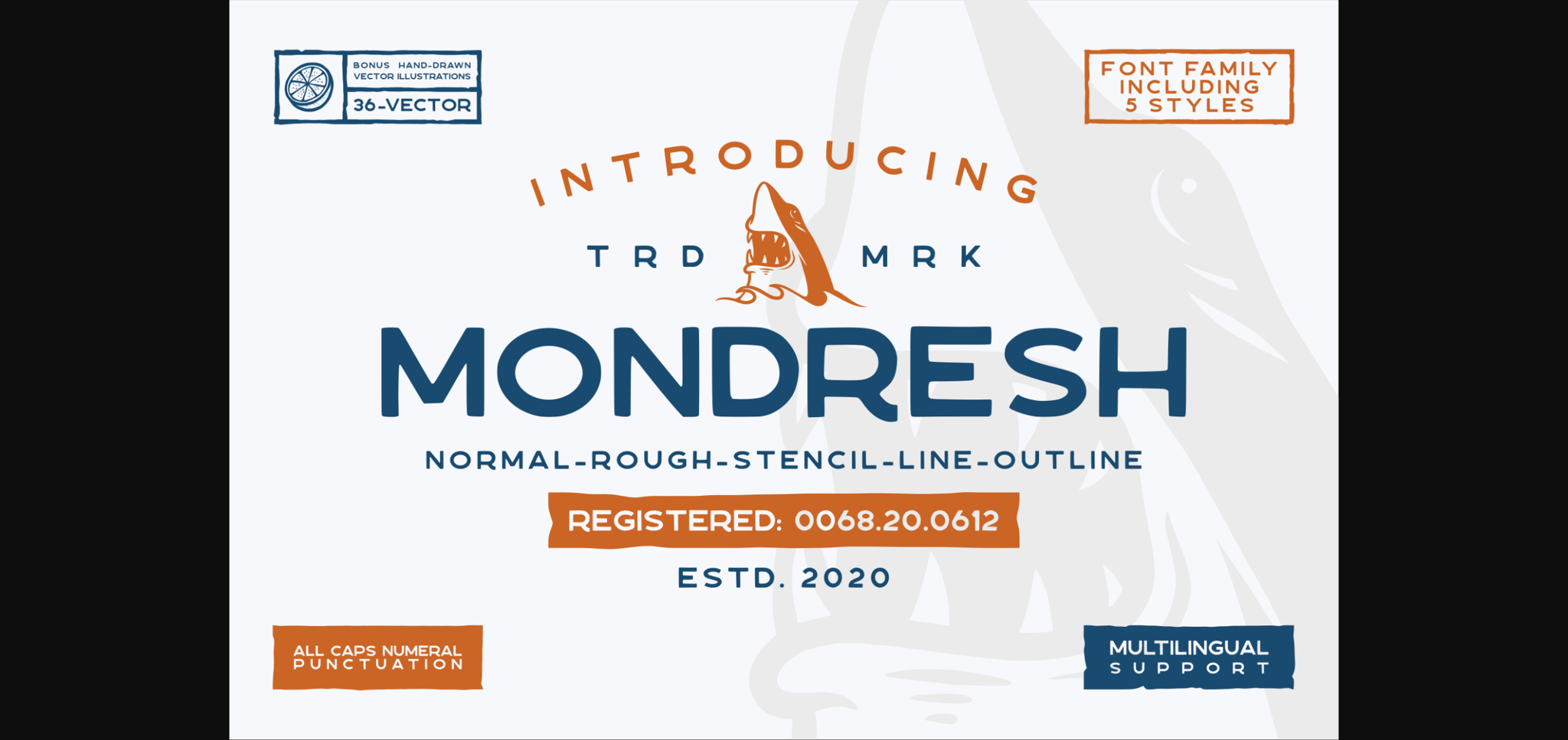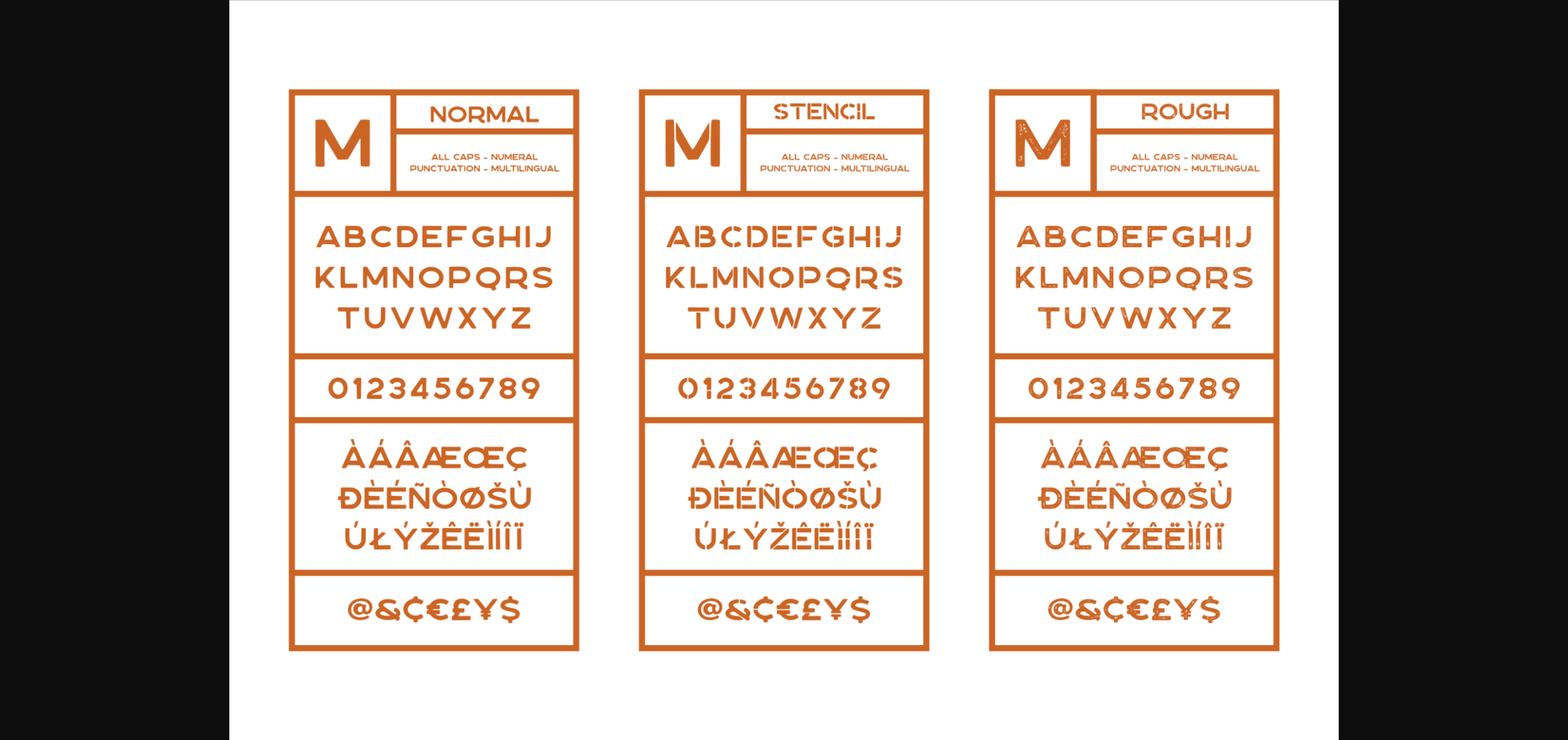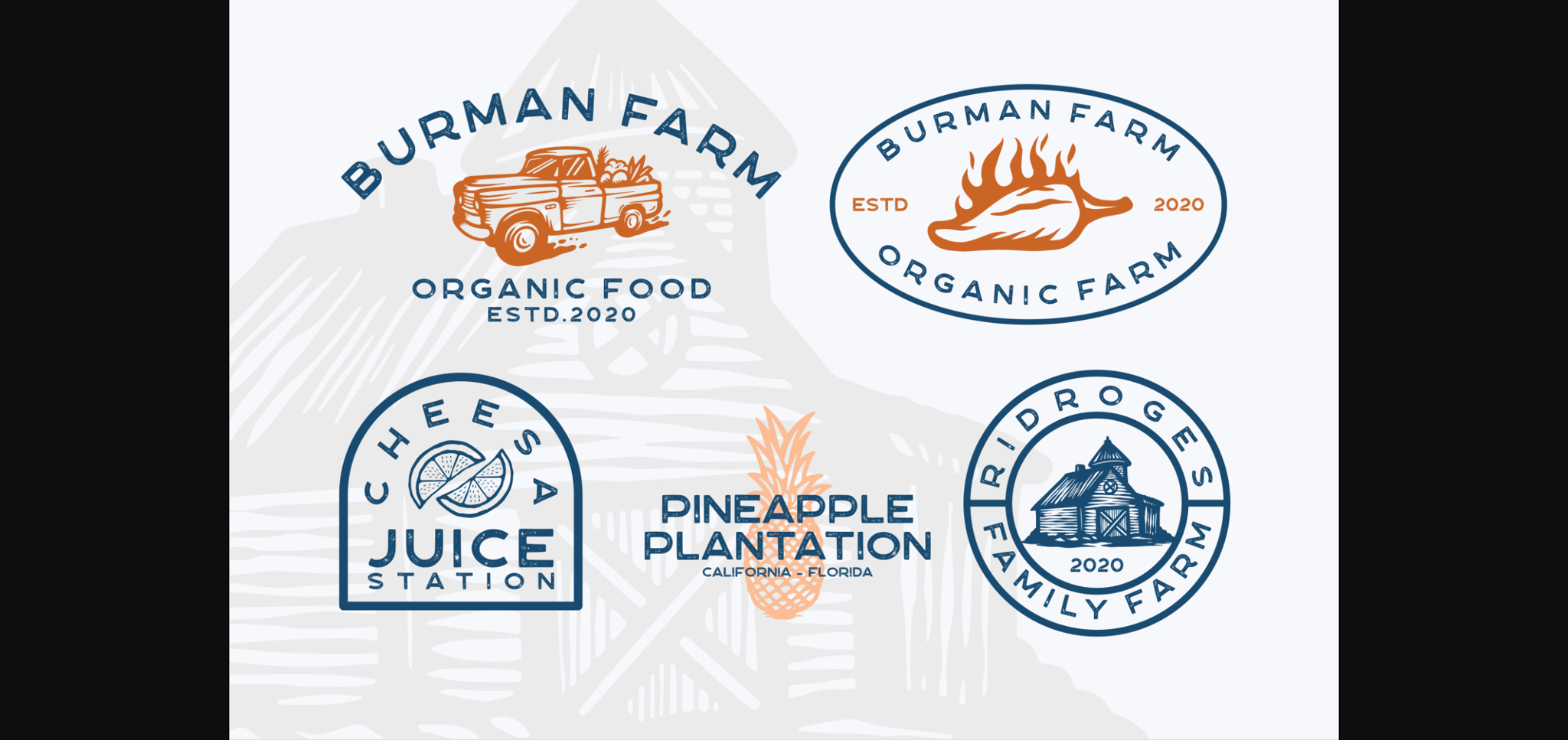
About Mondresh Font
Mondresh is a great sans serif font with a rugged style. It comes in 5 styles, combining these styles on your next design will give a modern and versatile feel. It will elevate a wide range of design projects to the highest level, be it branding, headings, wedding designs, invitations, signatures, logos, labels, and much more!